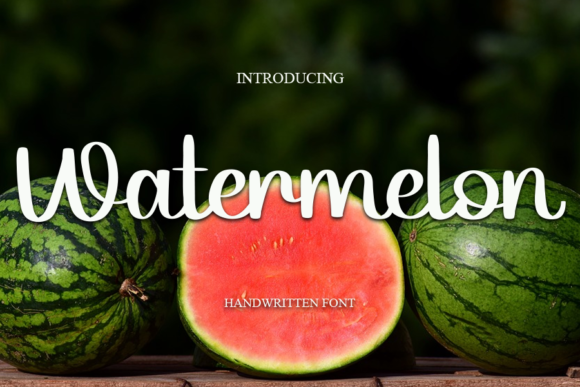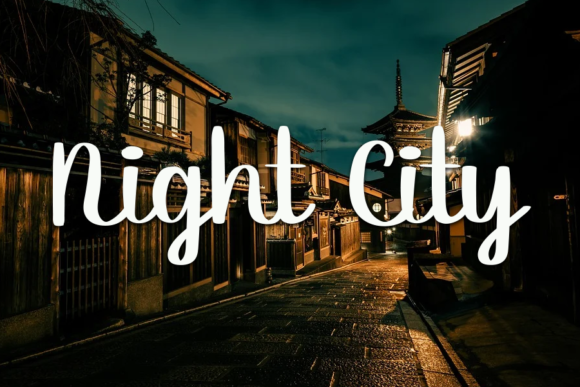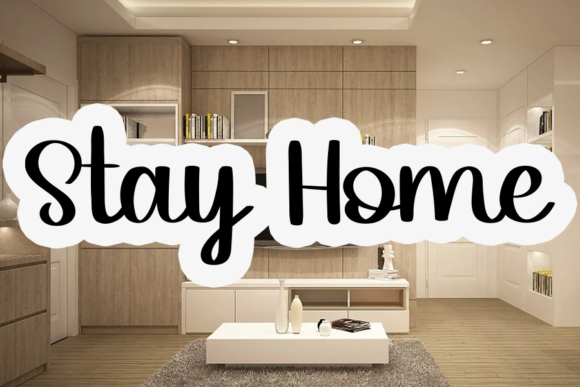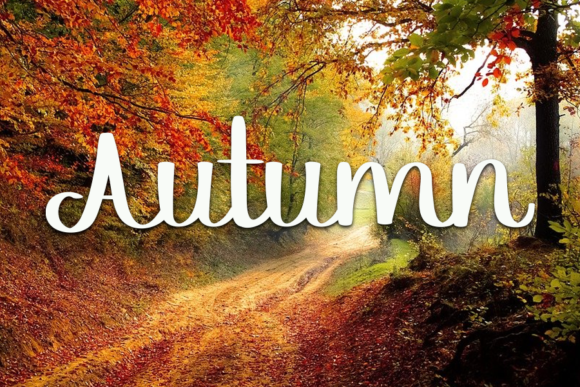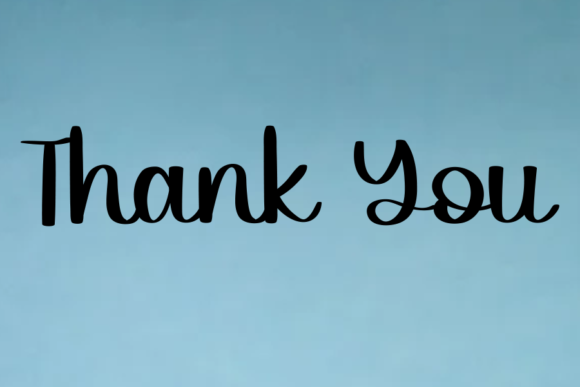
Watermelon Font
About Watermelon Font
Watermelon is a delicate handwritten font that has a modern yet whimsical style. It will undoubtedly immerse your designs into a magical world.